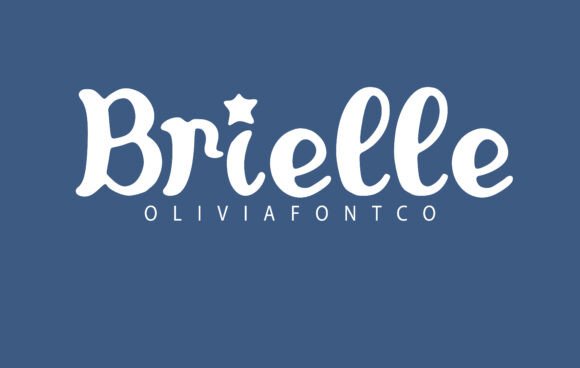
The Brielle Font: A Romantic Touch for Your Creative Projects
I’ll never forget the moment I stumbled upon the Brielle font while working on a wedding invitation design project. My client had a clear vision of a elegant, yet playful font that would match her special day’s theme. As I scrolled through my font library, I felt like I was searching for a needle in a haystack – until I saw Brielle. Its authentic handwritten style with a romantic touch immediately caught my eye, and I knew I had found the perfect fit.
• ✅ Legibility: Brielle font is incredibly easy to read, making it perfect for both title and body text.
• ✅ Versatility: Its romantic touch and elegant style make it suitable for a wide range of design projects, from magazine headlines to social media graphics, branding, wedding invitations, and more.
• ✅ Authentic Handwritten Feel: The font’s unique, handwritten style adds a personal touch to any design.
While Brielle font is an excellent choice for many projects, there are a few things to keep in mind:
• 🤔 Limited use of all-caps text: While the font looks great in uppercase, it’s not as visually appealing as its lowercase counterpart. Use it sparingly for emphasis.
The Story Behind Brielle Font: Designer Inspiration
According to its creators, Brielle font was designed to capture the essence of a romantic, handwritten script. The designers aimed to create a font that would evoke feelings of warmth, elegance, and playfulness. They drew inspiration from classic scripts, combined with modern touches to create a unique and versatile font.
Q: What type of projects is Brielle font best suited for?
A: Brielle font is perfect for a wide range of design projects, including magazine headlines, social media graphics, branding, wedding invitations, cards, and more.
Q: Is Brielle font available in different weights or styles?
A: Currently, Brielle font is available in a single weight. However, some font packages may include variations, such as italic or bold styles.